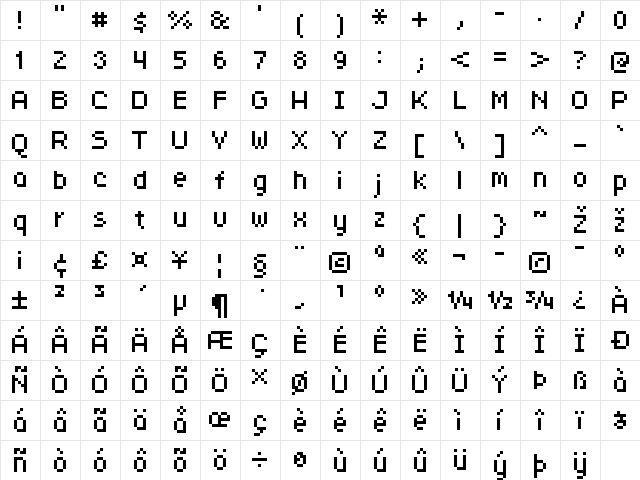
FFF Minitower Regular
| Foundry | Fonts For Flash |
| Designer | Fonts For Flash |
Design Context for FFF Minitower Typeface
FFF Minitower offers clean, dependable letterforms without strong stylistic allegiance, making it a practical choice for designers who need flexibility.